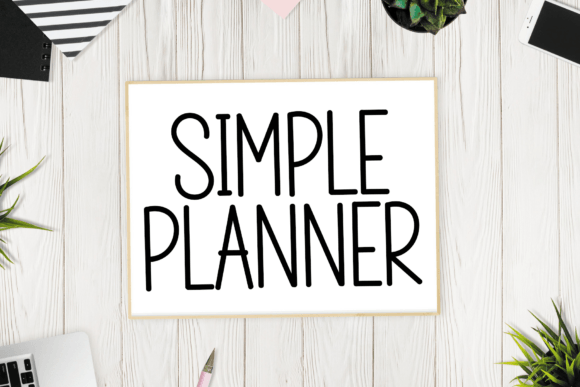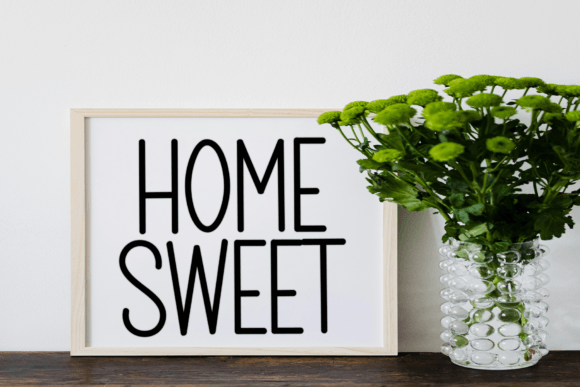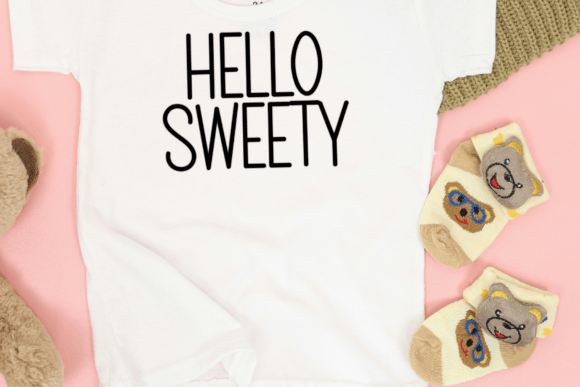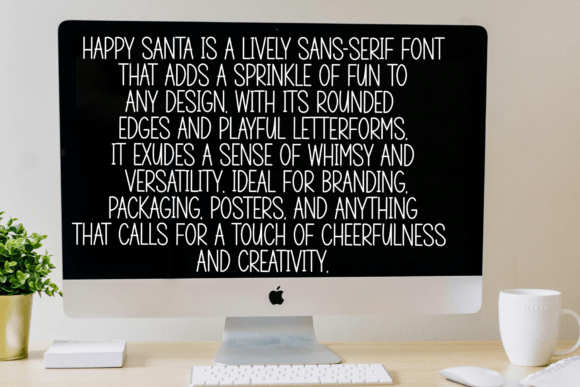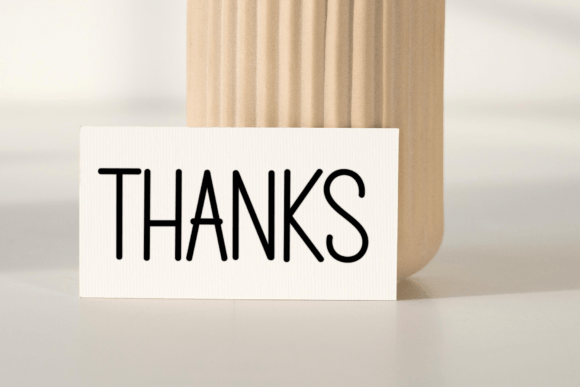
Introducing Happy Santa: The Ultimate Festive Font for Your Designs
Are you looking for a font that embodies the spirit of joy and festivity? Look no further than Happy Santa, a stunning handwritten font that is sure to bring a touch of elegance and whimsy to your designs. In this article, we’ll dive into the world of Happy Santa, exploring its unique features, and how you can use it to create spectacular designs that will leave a lasting impression.
A Clean and Beautiful Handwritten Font
Happy Santa is a clean and beautiful handwritten font that boasts an incredibly distinct and timeless style. Its elegant strokes and curves make it perfect for a wide range of projects, from holiday-themed designs to everyday branding materials. Whether you’re a designer, crafter, or DIY enthusiast, Happy Santa is sure to become your go-to font for creating visually stunning designs.
What Makes Happy Santa So Special?
So, what sets Happy Santa apart from other fonts? Here are just a few features that make it truly special:
- Unique and Distinctive Style: Happy Santa has a one-of-a-kind style that is both elegant and playful. Its distinctive strokes and curves make it perfect for creating designs that stand out from the crowd.
- Clean and Legible: Despite its elegant appearance, Happy Santa is incredibly legible, making it perfect for use in a wide range of designs, from body text to headings and titles.
- Versatile: Happy Santa is a versatile font that can be used in a wide range of projects, from holiday-themed designs to everyday branding materials.
How to Use Happy Santa in Your Designs
Now that we’ve explored the features of Happy Santa, let’s dive into how you can use it in your designs. Here are just a few ideas to get you started:
- Holiday-themed Designs: Happy Santa is perfect for creating holiday-themed designs, from Christmas cards to festive posters and social media graphics.
- Branding Materials: Use Happy Santa to create unique and memorable branding materials, such as logos, business cards, and letterheads.
- DIY Projects: Happy Santa is perfect for DIY enthusiasts who want to add a personal touch to their projects, from handmade cards to decorative signs.
Tips and Tricks for Getting the Most Out of Happy Santa
Here are just a few tips and tricks for getting the most out of Happy Santa:
- Pair it with Other Fonts: Happy Santa pairs perfectly with other fonts, so don’t be afraid to get creative and try out different combinations.
- Use it to Create a Consistent Brand Identity: Use Happy Santa to create a consistent brand identity across all of your designs, from business cards to social media graphics.
In conclusion, Happy Santa is a clean and beautiful handwritten font that is perfect for designers, crafters, and DIY enthusiasts who want to add a touch of elegance and whimsy to their designs. With its unique and distinctive style, clean and legible appearance, and versatility, Happy Santa is sure to become your go-to font for creating spectacular designs. So why wait? Download Happy Santa today and start creating designs that will leave a lasting impression!
Key Features of Happy Santa Font
- Clean and beautiful handwritten font
- Incredibly distinct and timeless style
- Perfect for holiday-themed designs and everyday branding materials
- Unique and elegant strokes and curves
- Clean and legible appearance
- Versatile and perfect for a wide range of projects
By incorporating Happy Santa into your design arsenal, you’ll be able to create stunning designs that capture the spirit of joy and festivity. So go ahead, get creative, and make this holiday season one to remember with Happy Santa!